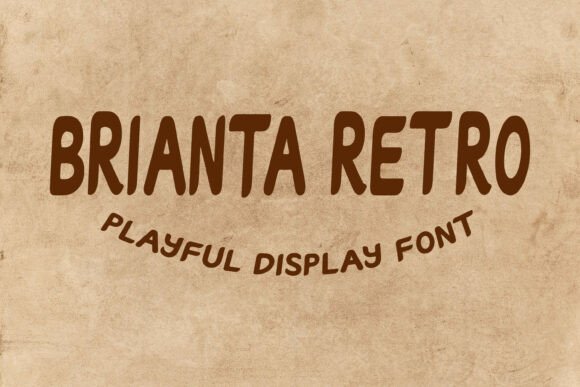
Brianta Retro: A Playful Display Font for Editorial Energy
As someone who designs newsletters, ebooks, and digital magazines—where tone, hierarchy, and reader engagement live or die by a single typographic choice—I pay close attention to display fonts that do more than just look good. They need to carry voice, signal intention, and hold attention without sacrificing clarity. Brianta Retro stands out precisely because it balances bold retro charm with editorial purpose—not as nostalgic decoration, but as functional typography that shapes how readers experience your content.
Visually, Brianta Retro is a high-contrast, geometric display font with rounded terminals, subtle flares, and confident letterforms. Its rhythm feels kinetic—slightly bouncy, never rigid—while maintaining strong legibility at larger sizes. The uppercase letters command space; the lowercase offers warmth and approachability. It’s not a script font or a handwritten typeface, nor does it lean into vintage clichés like distressed textures or heavy serifs. Instead, it channels mid-century optimism and modern graphic energy—think vibrant food branding meets smart lifestyle publishing.
In editorial design, Brianta Retro excels where impact and personality matter most: magazine covers, ebook titles, newsletter headers, chapter openers, and quote graphics. Use it for a recipe ebook cover to evoke joy and freshness—pairing it with a warm serif font like Merriweather for body text creates contrast that guides the eye and supports readability. For a digital magazine focused on creative entrepreneurship, apply Brianta Retro to section headings and pull quotes while keeping navigation, captions, and body copy in a clean sans serif (like Inter or Lato). That pairing reinforces visual hierarchy: the display font signals “pause and absorb,” while supporting fonts ensure smooth reading flow.
It works especially well in printables and lead magnets where tone shapes perceived value. A wedding planning workbook gains instant warmth and personality when Brianta Retro headlines each module—“Venue Checklist,” “Timeline Builder,” “Vendor Notes”—while a minimalist sans serif handles instructions and checkboxes. Similarly, coaching workbooks benefit from its energetic yet grounded presence: it conveys encouragement without sounding childish, authority without stiffness. Even in PDF exports for client deliverables, Brianta Retro renders cleanly across devices and platforms, provided you embed the font or convert to outlines for final production.
For screen-based reading—like blog headers or newsletter banners—Brianta Retro performs reliably at 32px and above. Avoid using it below 24px, especially in mobile layouts, where its rounded geometry can soften at smaller sizes. It’s not intended for long-form body copy, captions, or footnotes. Reserve it for moments of emphasis: article titles, callout boxes, social media quote graphics, or branded section dividers in printable planners. Its strength lies in controlled application—not ubiquity.
Font pairing is where Brianta Retro reveals its editorial versatility. Pair it with a classic serif—such as EB Garamond or PT Serif—for ebook chapter titles and printed guides. The contrast between its playful geometry and the serif’s quiet authority adds sophistication. For digital-first publications, pair it with a humanist sans serif like Open Sans or Nunito—fonts designed for screen legibility and responsive behavior. Avoid pairing it with other display fonts or overly decorative scripts; the goal is balance, not competition. Let Brianta Retro anchor the visual voice, then let supporting fonts handle clarity and continuity.
Think about how Brianta Retro might shift the feel of your next project. A wellness blog could use it for seasonal challenge headers (“Summer Reset Guide”) while keeping article intros in a breathable serif. A small-batch food brand launching a digital zine might set its masthead and recipe titles in Brianta Retro, then switch to a neutral sans for ingredient lists and prep notes. A creator newsletter announcing a new workshop series gains memorability with Brianta Retro in subject lines and banner graphics—distinctive enough to stand out in crowded inboxes, yet professional enough to reflect expertise.
Ultimately, Brianta Retro isn’t about chasing trendiness. It’s about choosing a display font that aligns with your publication’s emotional intent—whether that’s joyful, inviting, confident, or quietly rebellious—and using it with editorial discipline. It invites readers in, not with noise, but with intention. In a landscape where attention is fragmented and tone is often flattened by generic system fonts, a thoughtfully applied display font like Brianta Retro becomes part of your brand identity—not just decoration, but communication strategy made visible.